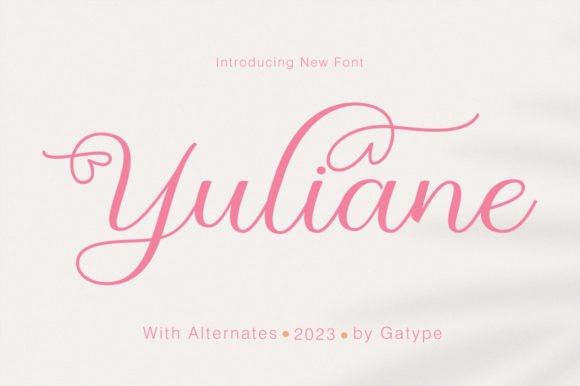
Introducing Yuliane Font - the perfect addition to your collection if you are looking for a unique and elegant handwritten script font. Created by gatype, this stunning font boasts a natural stroke that gives your designs a timeless and sophisticated look.
With its classic twist and contemporary feel, Yuliane Font is perfect for designs that require a modern touch without being too vintage. But, what sets Yuliane Font apart from other script fonts? Well, it's the perfect font for political posters!
Imagine creating a poster that makes a bold statement and demands attention. Yuliane Font is the perfect tool to achieve that. It adds a touch of elegance to your message, making it more impactful and memorable. It captures the essence of a campaign and makes it come to life with its unique handwriting style.
But, it's not just political posters that benefit from this font. Yuliane Font can be used for a range of designs, from wedding invitations to social media graphics, and everything in between. It adds a personal touch to any design and makes it stand out from the rest.